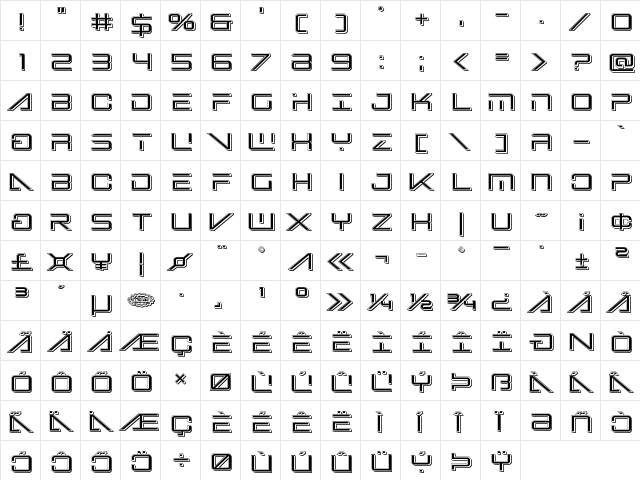
Banshee Pilot Punch Regular
Design Context for Banshee Pilot Punch Typeface
Banshee Pilot Punch is a composed and adaptable typeface that performs quietly and consistently across a wide range of design contexts.
Pro Tip: Use Banshee Pilot Punch in both headline and body roles to test its range before committing to a single application.